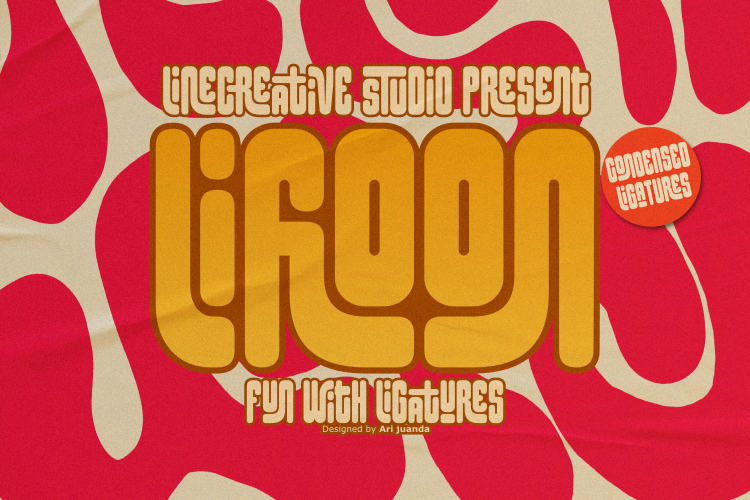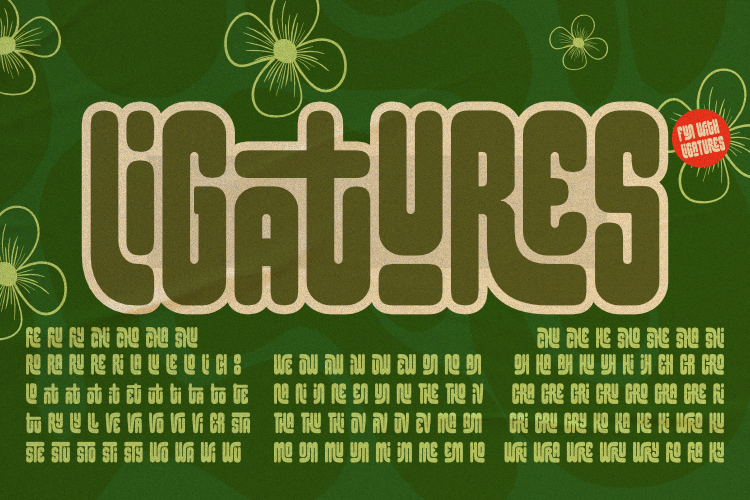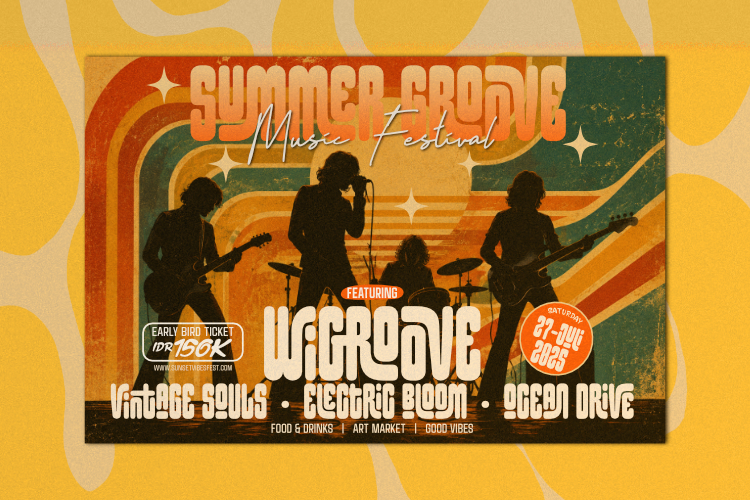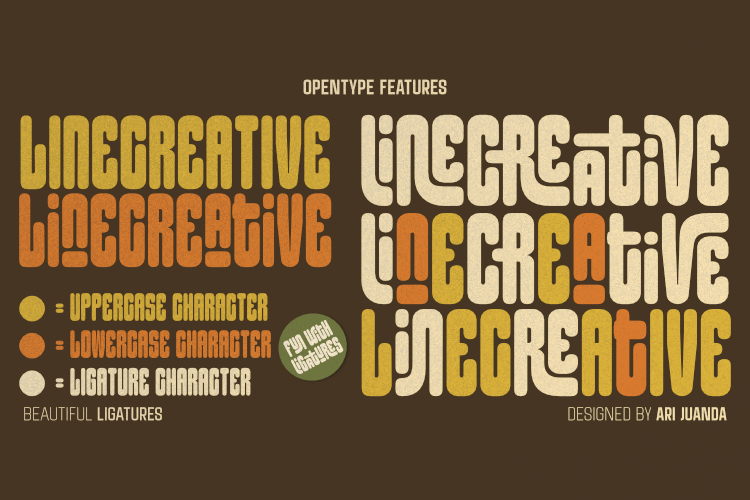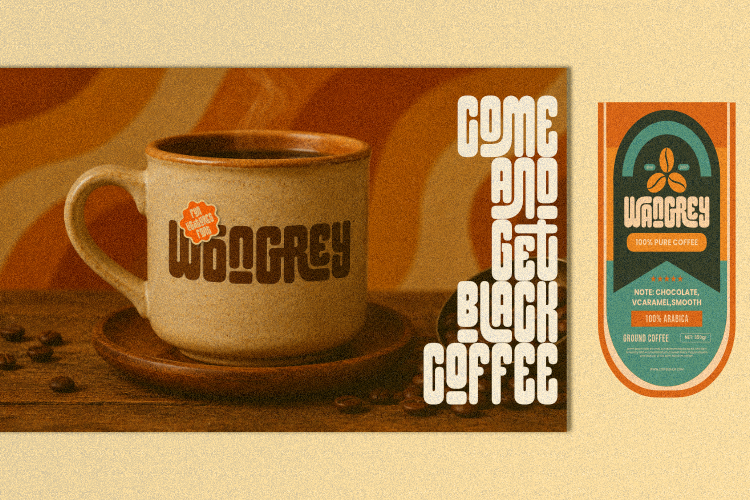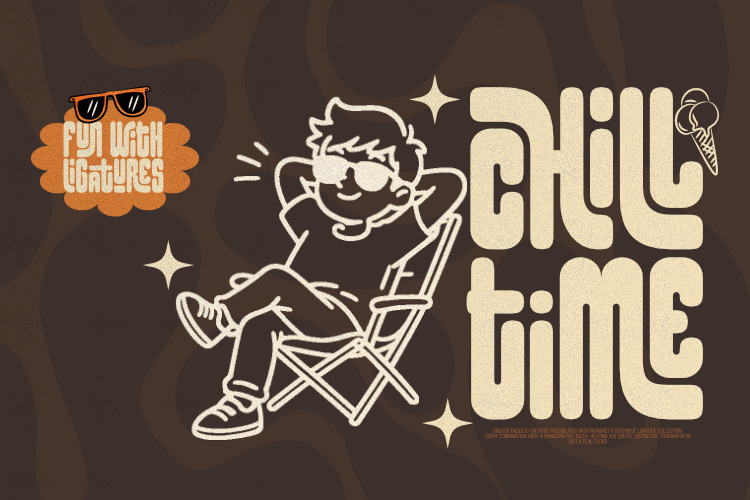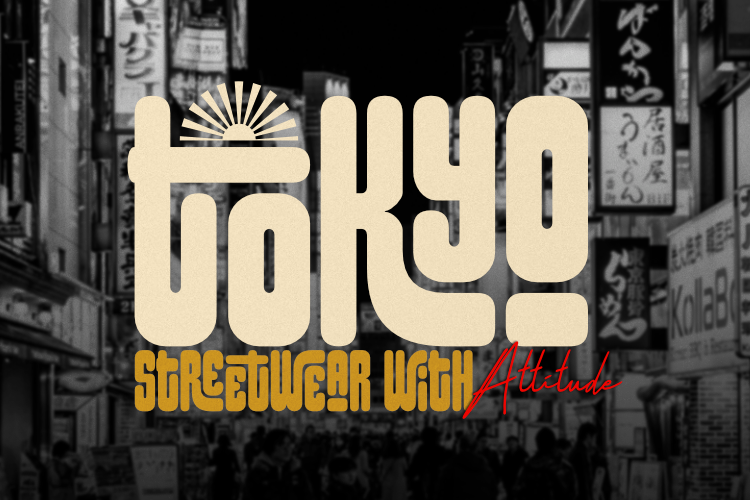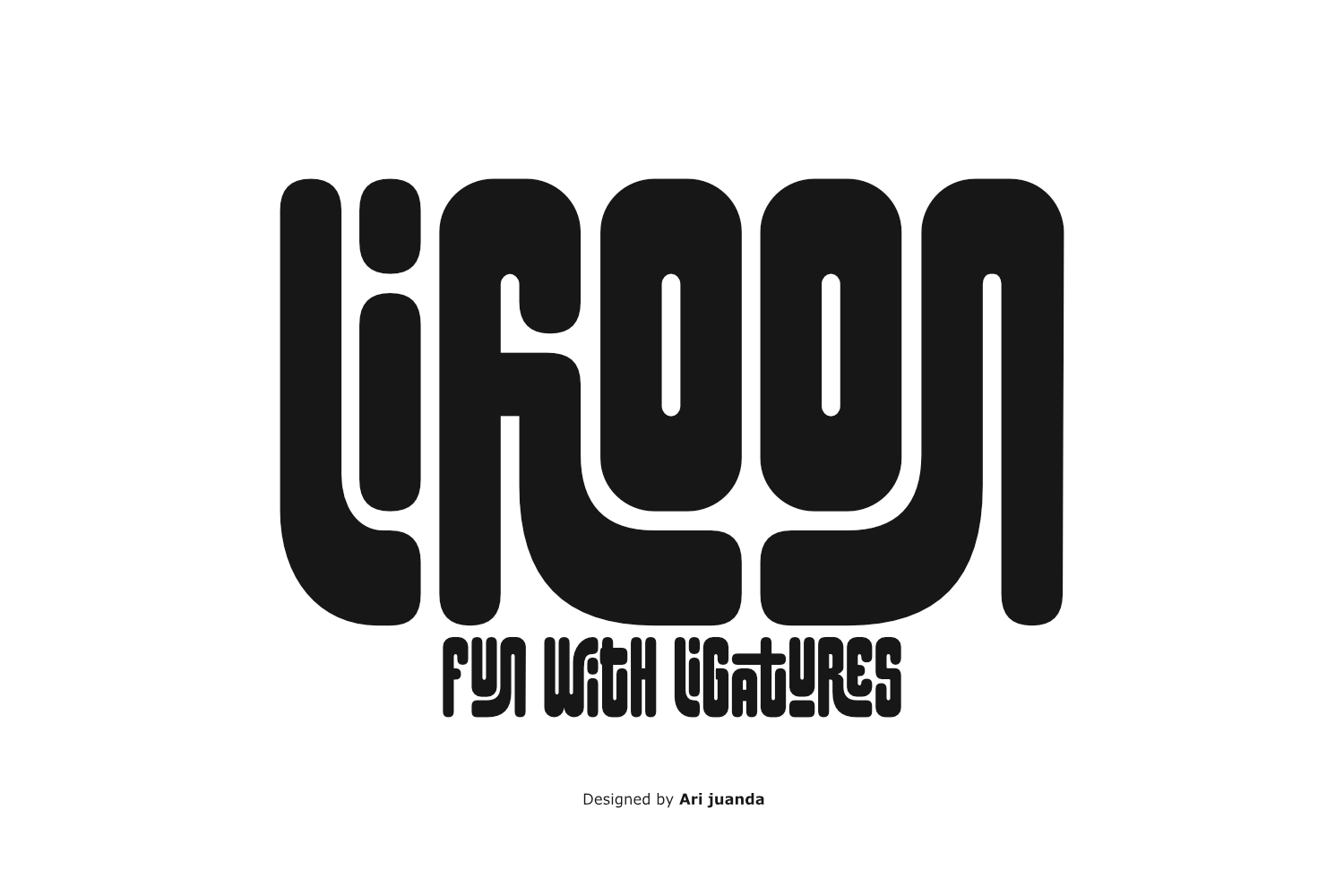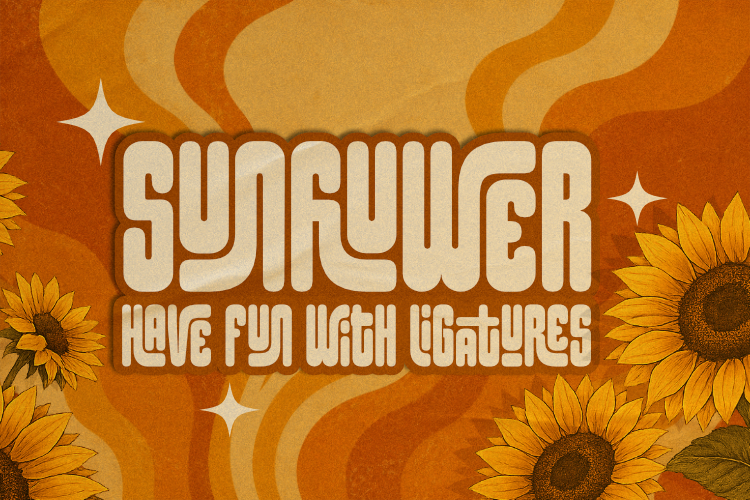
Lifloon – Fun Ligatures Font
Lifloon Fun Ligatures Font is a bold retro display typeface inspired by the timeless charm of vintage signage, classic packaging, and the vibrant typography of the 70s. Designed to make headlines stand out, Lifloon combines nostalgic character with a clean, contemporary finish, giving designers a distinctive typeface for expressive and memorable visual designs.
With its bold retro appearance, Lifloon Fun Ligatures Font brings a strong vintage personality to modern typography. The design is made for display use, allowing words and headlines to become an important part of the overall composition. Its nostalgic character works especially well for projects that need warmth, personality, and a recognizable visual style.
One of the defining features of Lifloon Fun Ligatures Font is its collection of beautiful handcrafted ligatures. Selected letter combinations have been carefully designed to create smoother and more natural connections between characters. By enabling OpenType ligatures, you can transform ordinary letter combinations into distinctive forms that give your typography a more custom lettering feel.
These handcrafted ligatures make Lifloon especially useful when you want your lettering to feel less generic. Instead of relying only on standard character combinations, the OpenType features can introduce additional visual character and rhythm to selected words, making them more expressive while keeping the process simple for designers.
The combination of vintage inspiration and modern usability makes Lifloon Fun Ligatures Font suitable for a wide range of creative projects. From retro branding and classic packaging to posters, apparel, café menus, labels, stickers, and social media graphics, Lifloon can add a warm and nostalgic atmosphere to your typography.
Perfect For
Lifloon Fun Ligatures Font is designed for display-focused projects where bold retro typography needs to capture attention.
- Retro Branding & Logo Design
- Vintage Signage
- Classic Packaging
- Café Menus
- Posters & Advertising
- Apparel & Streetwear
- Labels & Stickers
- Social Media Graphics
- Retro Merchandise
- Product Branding
- Vintage-Inspired Typography
- Headlines & Display Design
Features
- Bold Vintage Display Font
- Beautiful Handcrafted OpenType Ligatures
- Uppercase & Lowercase Characters
- Numbers & Punctuation
- Multilingual Support
- Easy to Use
Why You’ll Love Lifloon Fun Ligatures Font
Lifloon Fun Ligatures Font is more than just a vintage-inspired typeface. It is designed to bring personality and emotion into your typography while providing an easy way to create more distinctive lettering.
The handcrafted ligatures are one of the most expressive aspects of Lifloon. Carefully designed letter connections can give selected combinations a smoother and more natural appearance, helping your words feel more authentic, expressive, and visually interesting.
The bold structure also makes Lifloon Fun Ligatures Font particularly effective for headlines, logos, packaging, posters, and other designs where typography needs to make an immediate visual impression. Its retro character can add a nostalgic feeling without making the overall design feel outdated.
Create With Lifloon
Bring the energy and charm of vintage typography into your next creative project with Lifloon Fun Ligatures Font. Use its bold display character for impactful headlines, combine it with handcrafted ligatures for a more custom appearance, and create typography that feels expressive, memorable, and full of personality.
From branding and packaging to apparel and posters, Lifloon is made to turn ordinary words into distinctive vintage-inspired designs.
Turn ordinary words into unforgettable vintage typography with Lifloon.